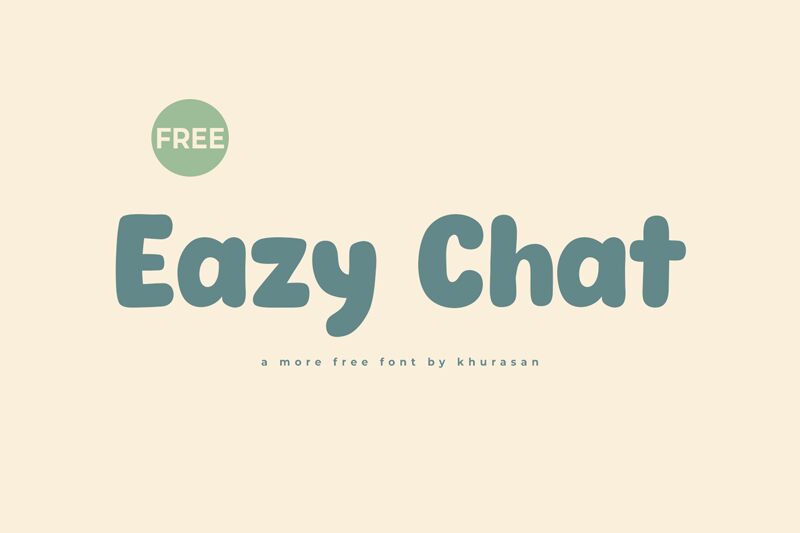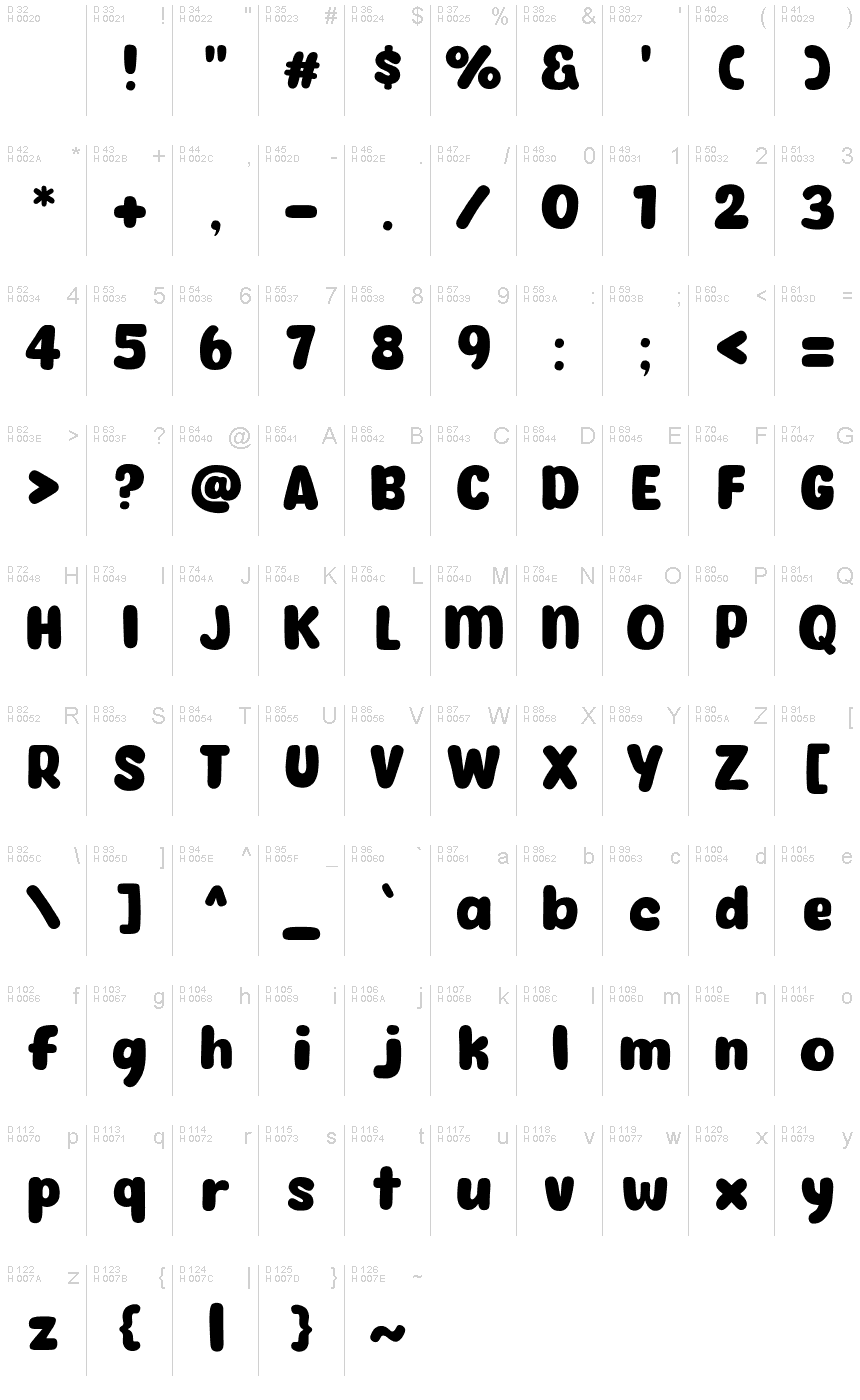
Eazy Chat
Eazy Chat, a playful and bold creation by Khurasan, bursts onto the scene with its cartoon-style charm. This display font exudes an energetic vibe that is both eye-catching and delightfully readable. The robust weight of Eazy Chat anchors each character with a sense of cheerfulness and approachability, encapsulating the essence of informal conversation and lighthearted design.
The rounded contours and soft terminals give it a friendly appearance, making it perfect for projects targeting younger audiences or for any work that benefits from a touch of whimsy. From engaging social media graphics to vibrant children's book titles, Eazy Chat is versatile enough to add a splash of fun to various creative endeavors without sacrificing legibility.
Embrace the unique blend of casual flair and bold presence that Eazy Chat offers, ensuring your designs speak volumes with its undeniably spirited style.